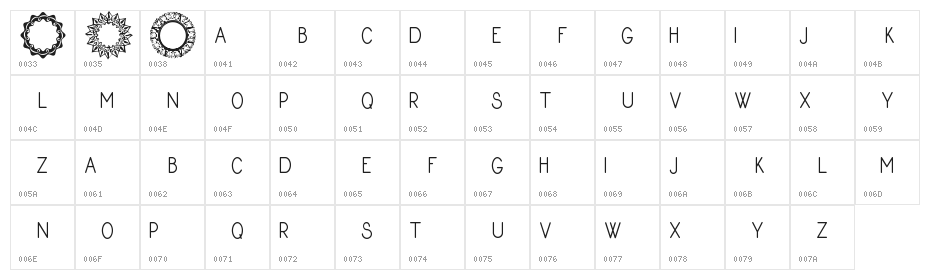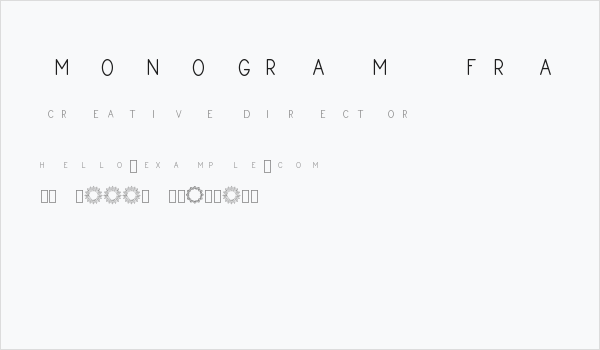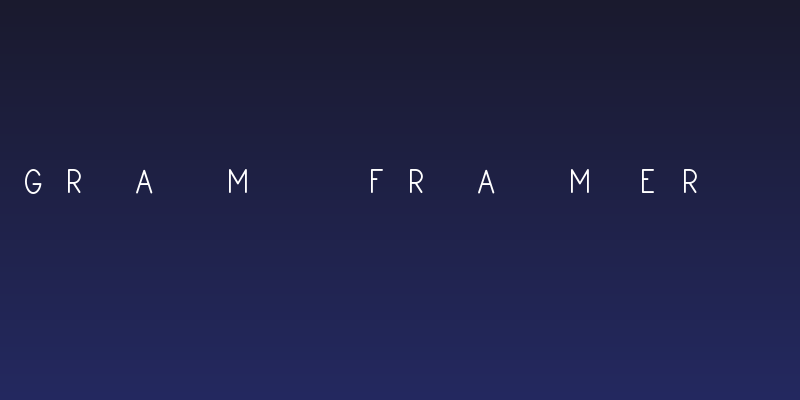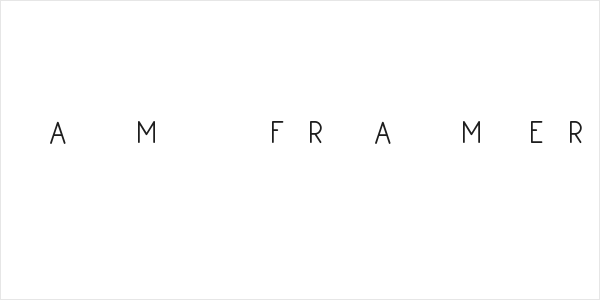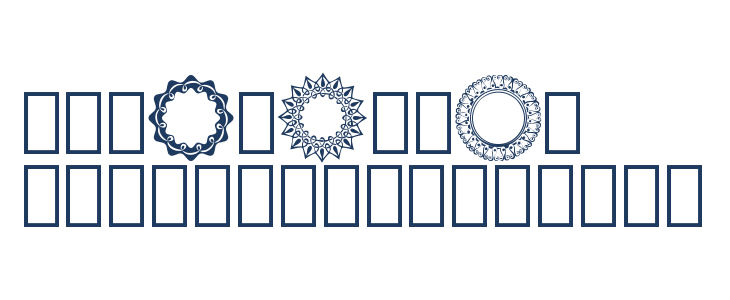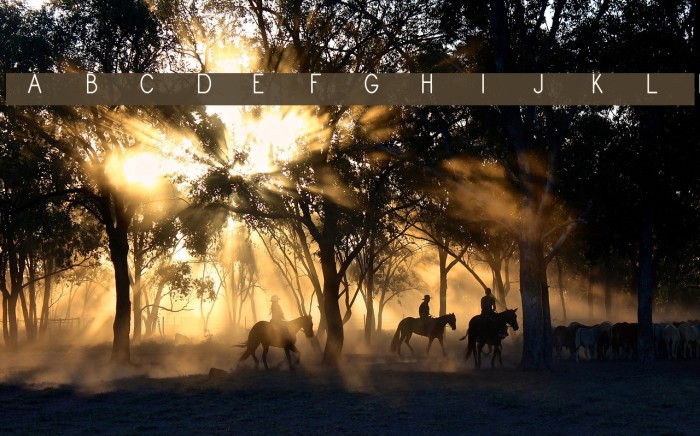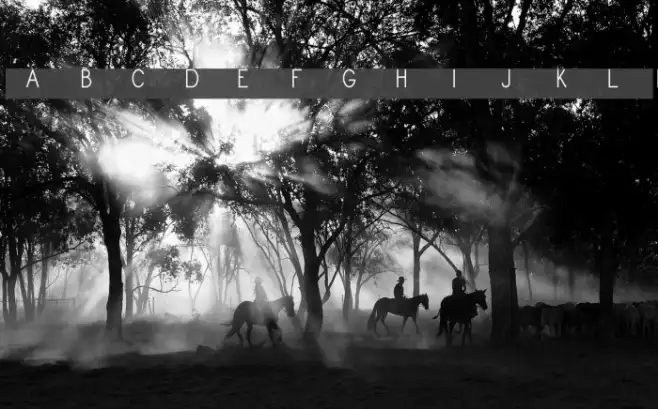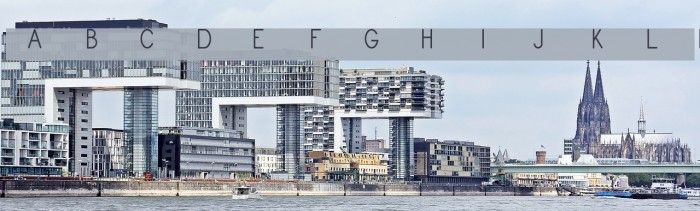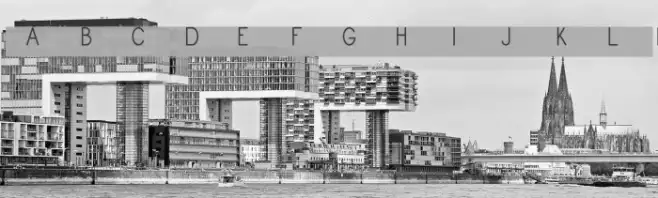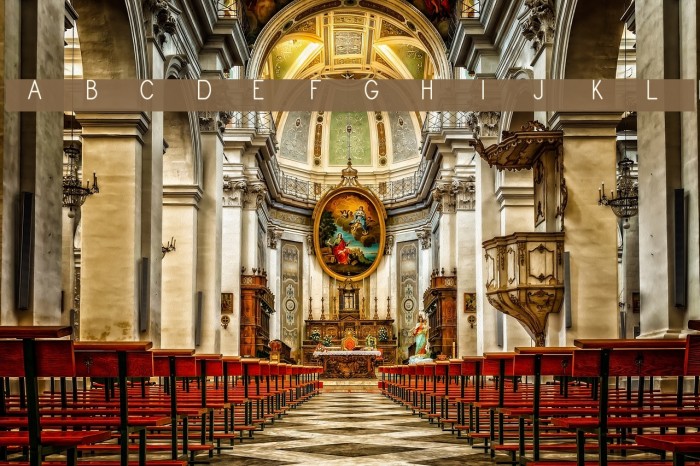
Monogram Framer Demo Font
Monogram Framer Demo Description
This font features a clean and minimalist design with thin, evenly spaced lines that create a modern and elegant appearance. The uppercase and lowercase letters maintain a consistent height and width, contributing to a uniform look. The characters are simple yet refined, with a geometric influence that enhances readability. The font's simplicity makes it versatile for various design applications, while its subtle sophistication adds a touch of class. The spacing between characters is balanced, ensuring clarity and legibility across different sizes and contexts.
| Proposed Projects | Ideal for modern branding, minimalist logos, editorial design, and digital interfaces. |